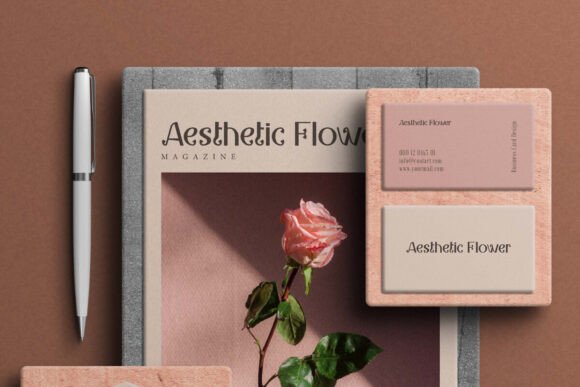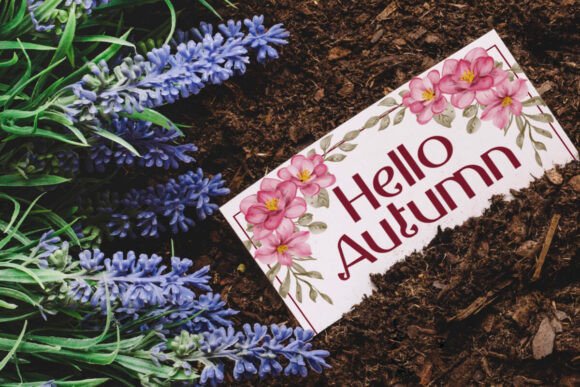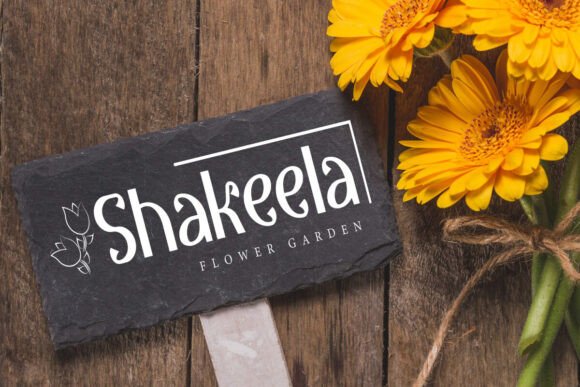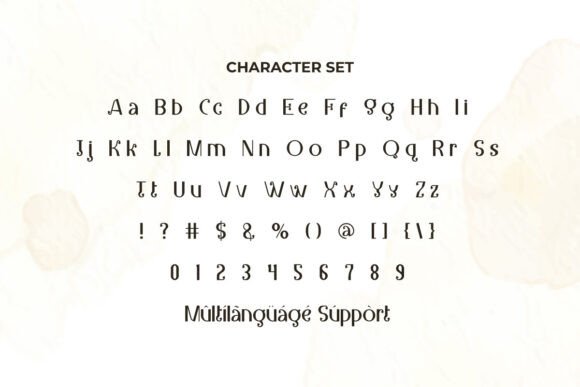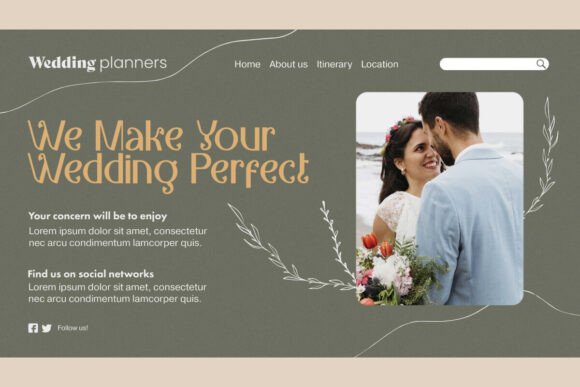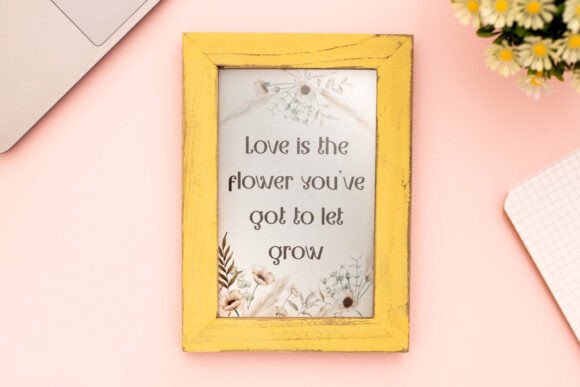
Unleashing the Beauty of Typography: Introducing Boogie Flower Font
Have you ever been stuck on a design project, struggling to find the perfect font that captures the essence of your creative vision? I know I have. That’s why I’m thrilled to share with you a game-changing discovery: the Boogie Flower Font. This stunning display font is not only visually stunning, but also surprisingly easy to read, making it the perfect addition to any design project.
With its unique shape in each character, the Boogie Flower Font is the perfect way to add a touch of whimsy and personality to your designs. Whether you’re creating an advertisement, branding your business, or designing a custom invitation, this font is sure to make your work stand out. As a designer, you know how valuable a versatile and eye-catching font can be, and the Boogie Flower Font is no exception.
- Unique Characteristics: Hand-drawn design, playful and whimsical feel, perfect for creative projects and designs that require a touch of personality
Overall, I’m thoroughly impressed with the whimsical charm of the Boogie Flower Font. ✨ Its playful, hand-drawn feel immediately caught my eye, and I can see it adding a delightful touch to various design projects. The font’s organic, floral-inspired motifs evoke a sense of wonder and curiosity.
- ✨ Unique and eye-catching design: The font’s one-of-a-kind style is sure to grab attention and add visual interest to any project.
- ✨ High-quality typography: The font’s letterforms are carefully crafted, with each element working together to create a cohesive and polished look.
- ✨ Versatility: The Boogie Flower Font can be used for a wide range of applications, from branding and marketing materials to editorial and digital content.
- ⚠️ Not ideal for small text: The font’s intricate design can make it difficult to read at small sizes, so be sure to test it carefully before using it for body text.
Overall, I think the Boogie Flower Font is a fantastic addition to any designer’s toolkit. While it may have some limitations, its unique charm and high-quality typography make it a great choice for projects where you want to add a touch of whimsy and personality.
The Boogie Flower font is perfect for:
- Creative projects, such as invitations, posters, or social media graphics.
- Children’s books or educational materials.
- Wedding invitations or other special occasion graphics